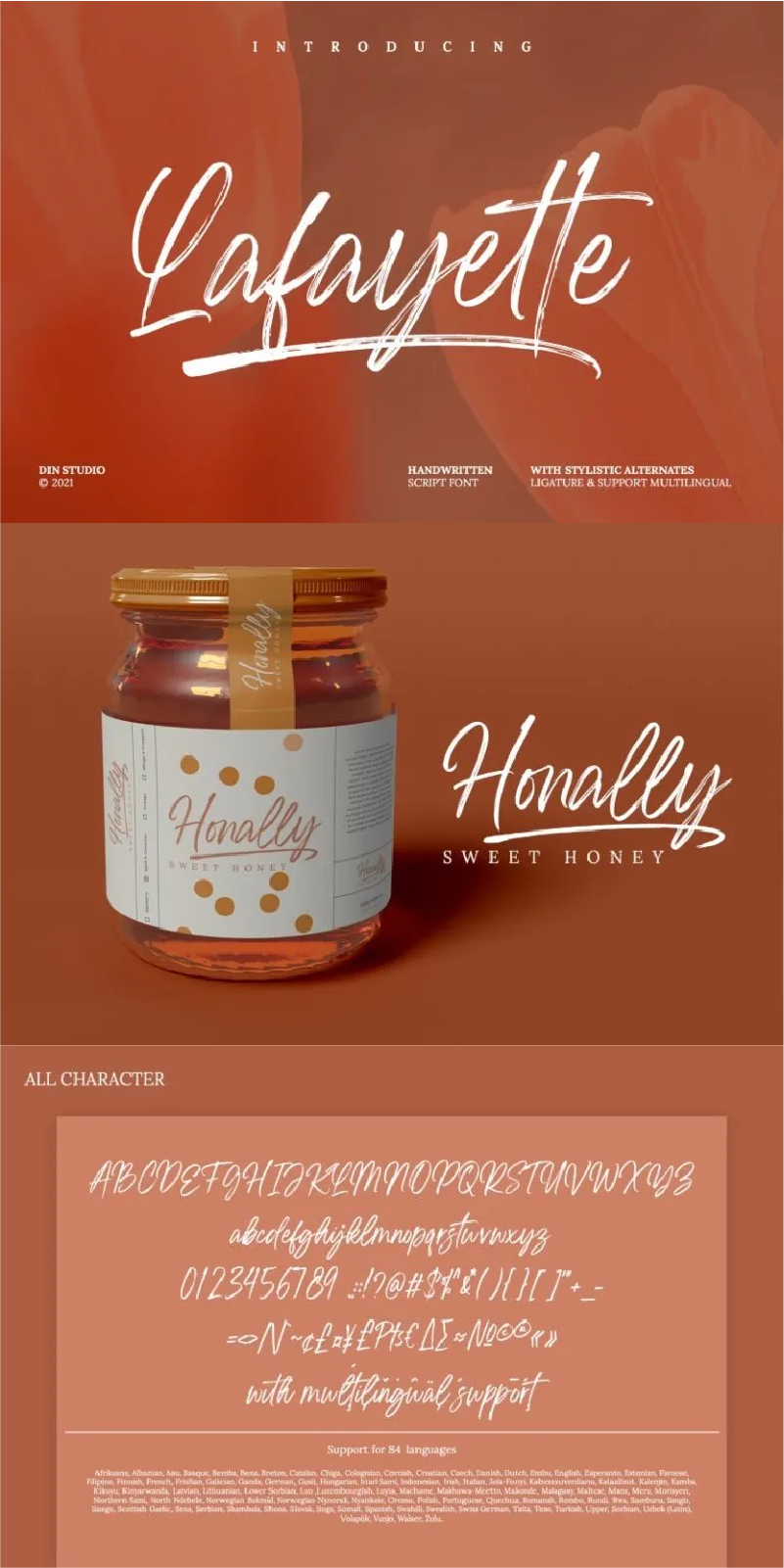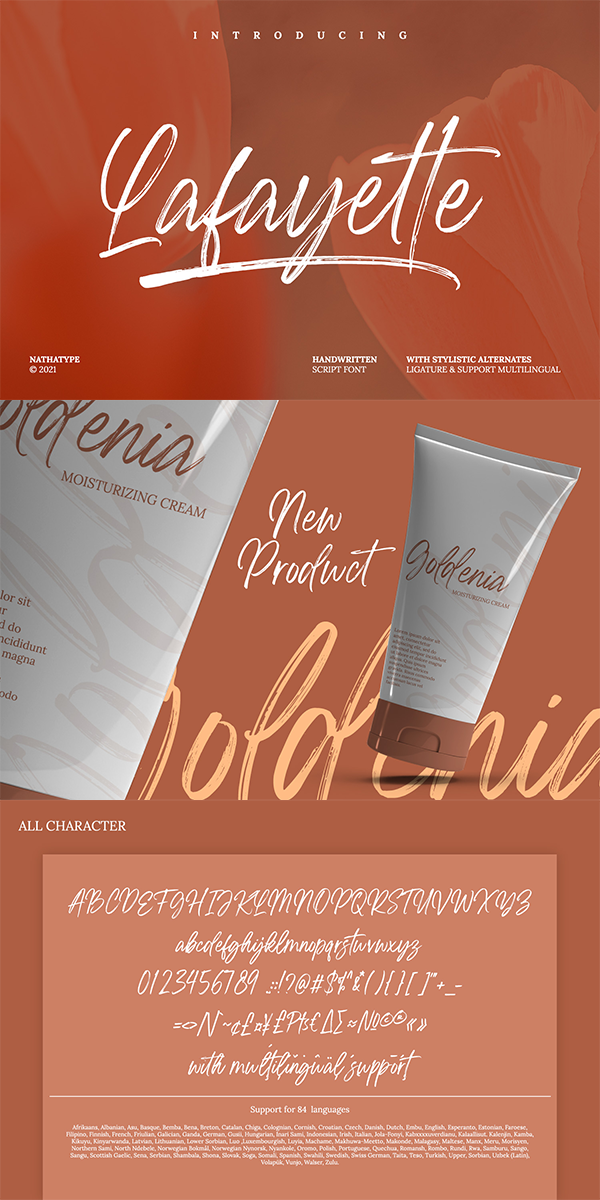
Lafayette Font
About Lafayette
Lafayette – A Handwritten Font
Lafayette is a handwritten font is accompanied by a little bit brush style that creates a visually attractive modern feel. Designed primarily as a captivating font to add the right amount of beauty and style. This font become for special with swashes package. The best choice to ensure a great font match for your designs and projects! Well suited to titles, poster designs, branding, quotes, and logos.
Our font always includes Multilingual Support to make your branding reach a global audience.